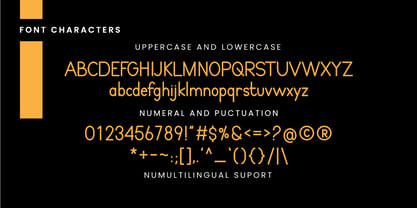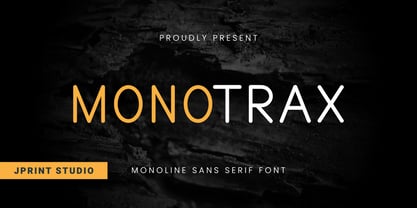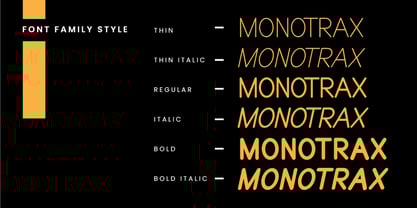
Monotrax
by JprintStudio
The Monotrax Font Family was designed by Gais Zaelani and published by JprintStudio. Monotrax contains 6 styles and family package options. More about this family
Monotrax is a monoline sans serif font with a clean, uncluttered, and modern character. Designed with consistently thin lines, this font conveys a minimalist yet professional feel, suitable for a variety of design needs. Monotrax is ideal for use in logos, headlines, branding, posters, editorials, and digital designs due to its simple yet elegant appearance. With its high flexibility, this font can convey a contemporary, stylish, and timeless impression, making it the perfect choice for designers seeking a strong yet readable visual identity.